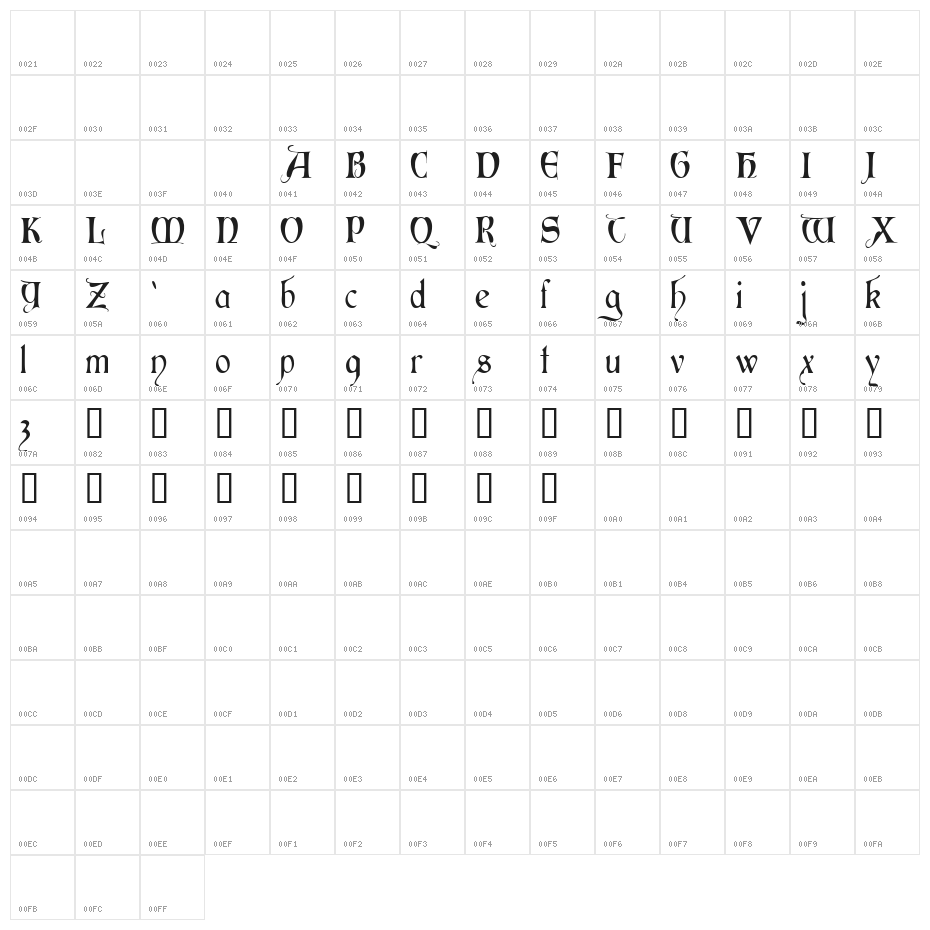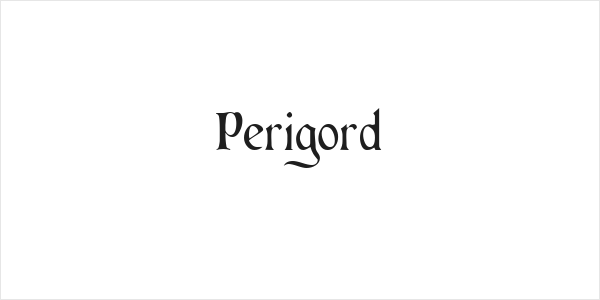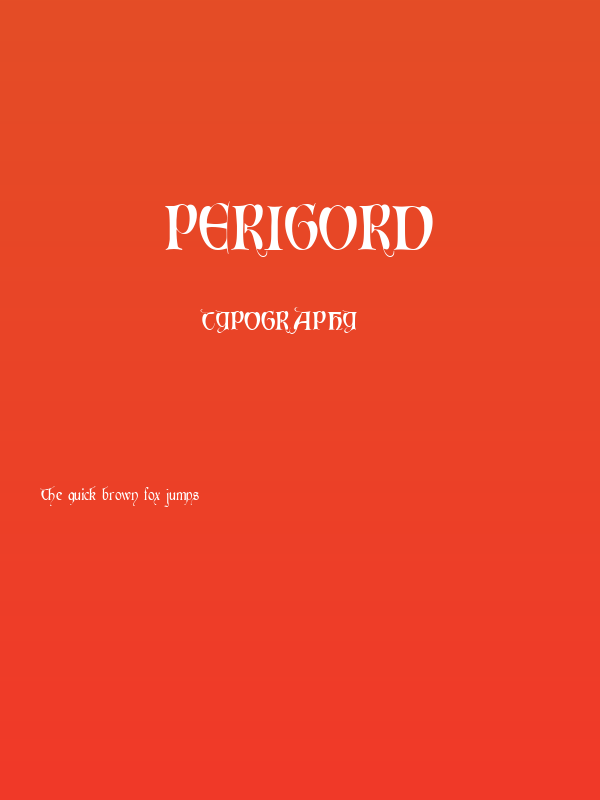
Perigord Font
Perigord Description
This font features an elegant and intricate design, reminiscent of traditional calligraphy with a modern twist. The uppercase letters are characterized by their ornate and flowing strokes, creating a sense of movement and grace. The lowercase letters maintain a consistent style, with a slightly more subdued flair, ensuring readability while retaining the decorative essence. The overall appearance is both sophisticated and artistic, making it suitable for projects that require a touch of elegance and historical charm. The font's unique style is enhanced by its balanced proportions and the subtle variations in stroke thickness, which add depth and character.
| Proposed Projects | Ideal for wedding invitations, historical-themed designs, book covers, and luxury branding. |